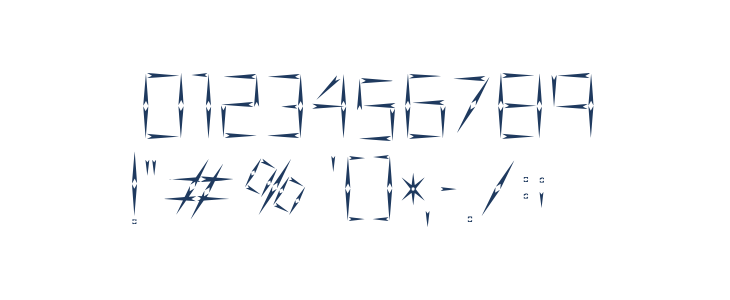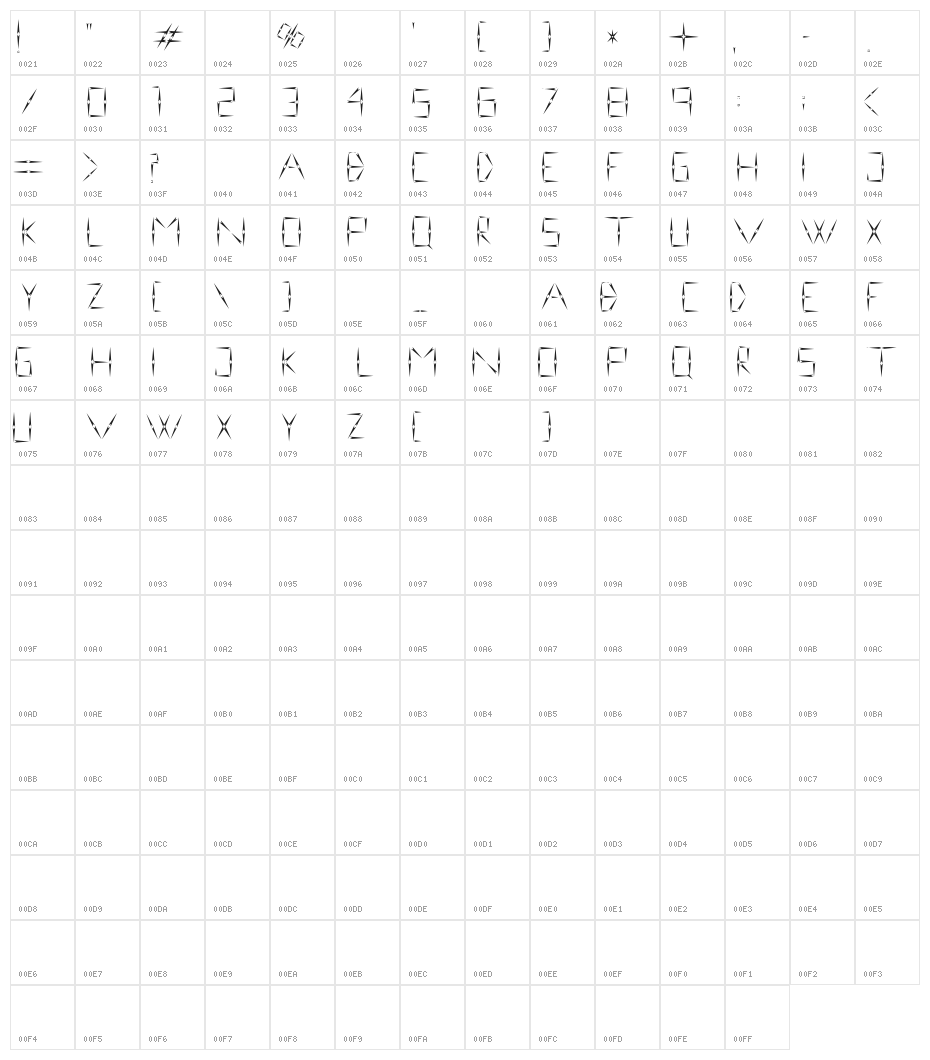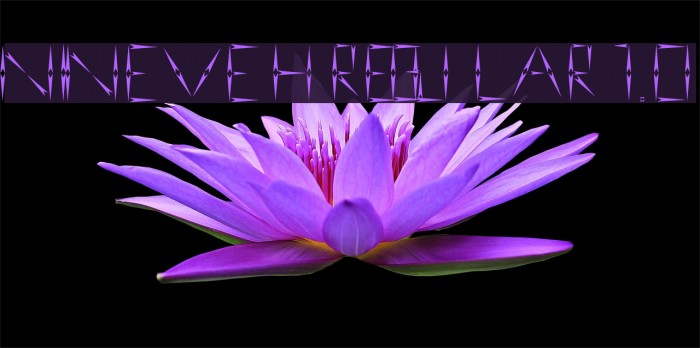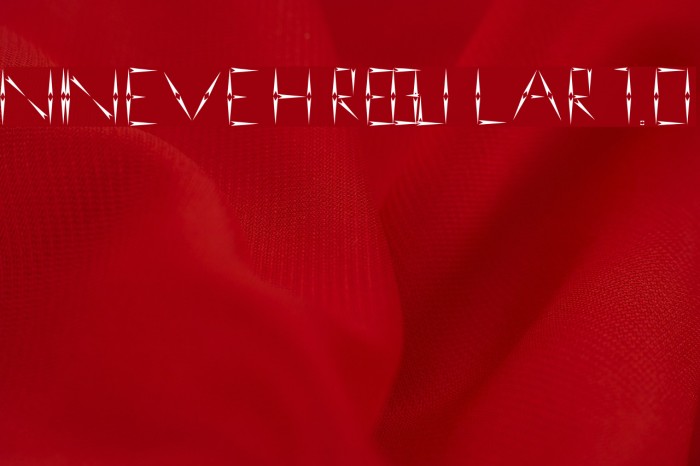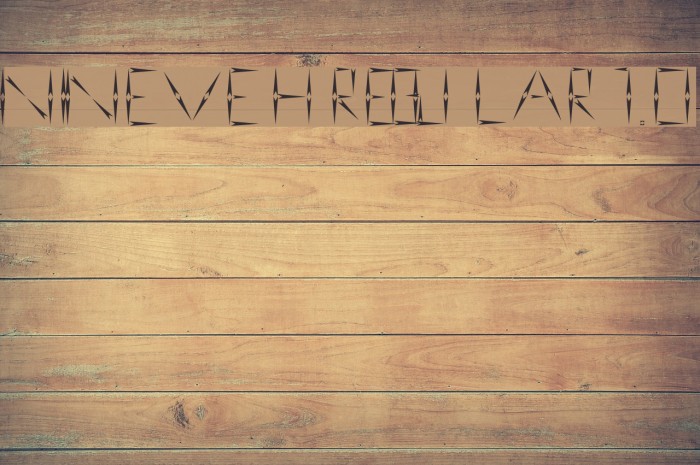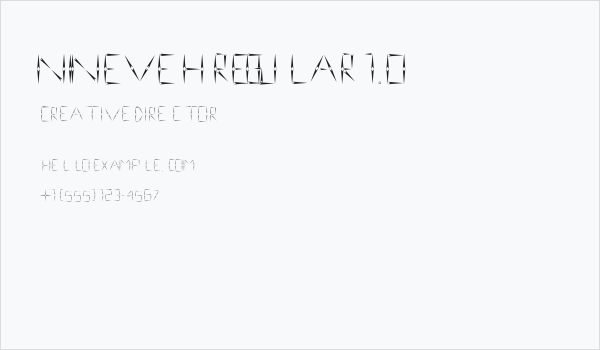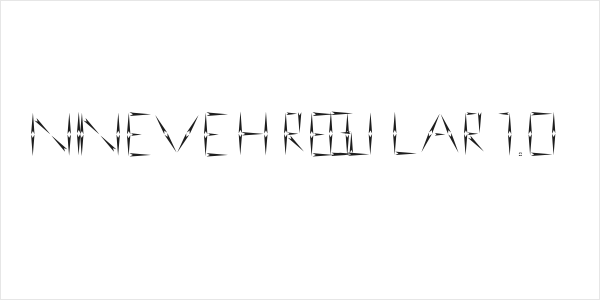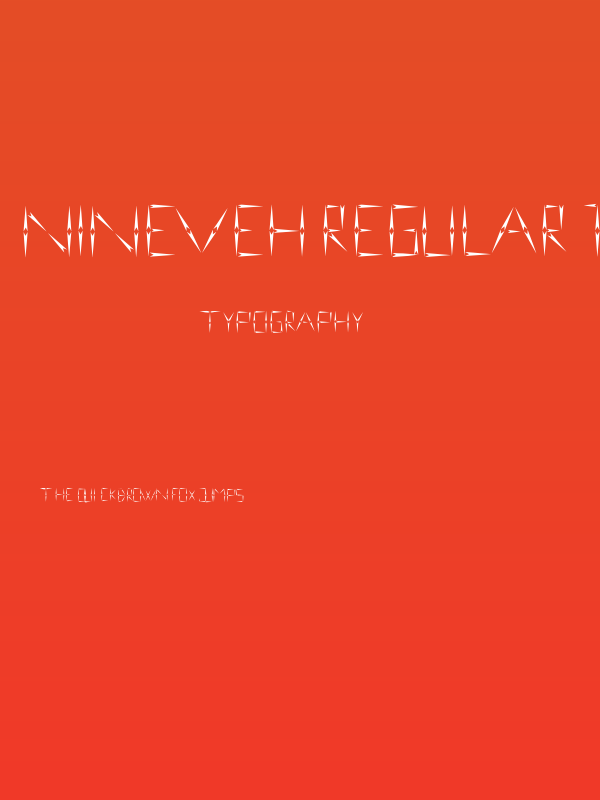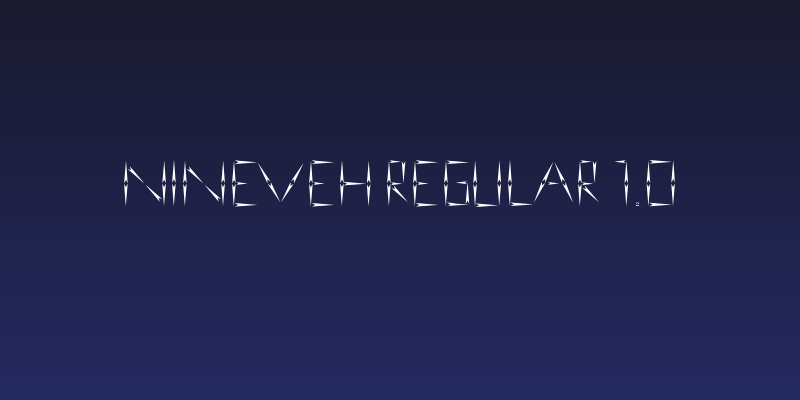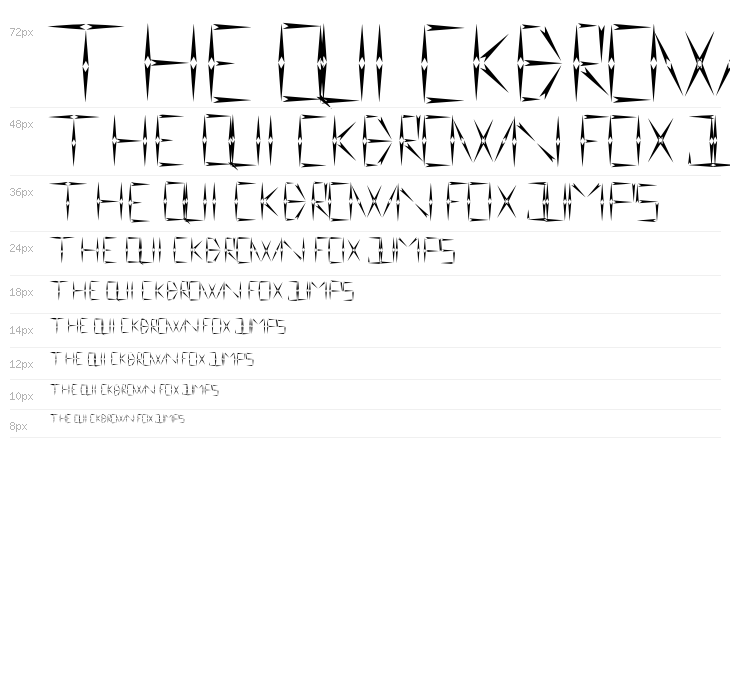
nineveh regular 1.0 Font
nineveh regular 1.0 Description
This font features a unique, angular design with sharp, pointed edges and a geometric style. Each character is constructed with a series of triangular shapes, creating a dynamic and edgy appearance. The font has a futuristic and decorative feel, making it stand out with its bold and striking visual impact. The characters are evenly spaced, providing a balanced and cohesive look. The high contrast between the thick and thin strokes adds to its dramatic effect, making it suitable for attention-grabbing designs.
| Overall Style | Futuristic, Decorative |
| Proposed Projects | Ideal for sci-fi themed projects, video game titles, posters, and branding that requires a modern and edgy look. |